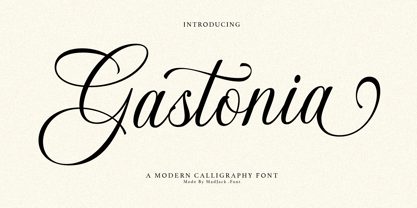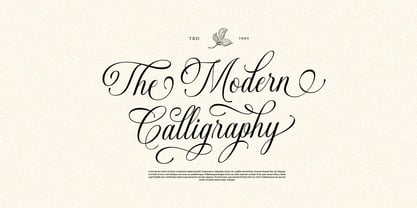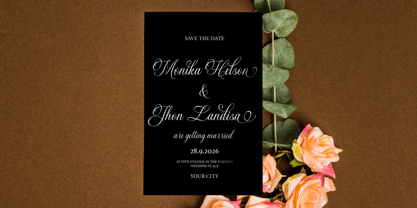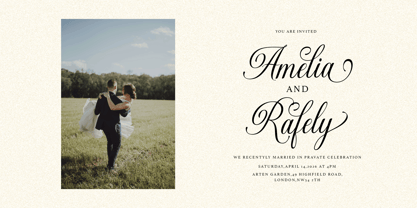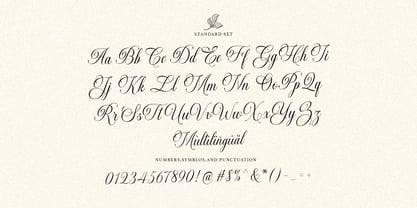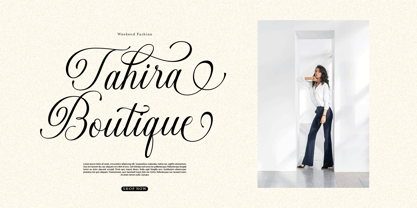
Gastonia Script
by madjack.font
The Gastonia Script Font Family was designed by Zaki Muhammad and published by madjack.font. Gastonia Script contains 1 styles. More about this family
Gastonia Script is a modern script font with a classic and elegant touch. Gastonia Script is appealing because it's sleek, clean, feminine, sensual, glamorous, simple, and highly legible, thanks to its many luxurious letter connections. I also offer a number of stylish alternatives for some of the letters. Its classic style is perfect for various formal applications such as invitations, labels, restaurant menus, logos, fashion, makeup, stationery, novels, magazines, books, greeting/wedding cards, packaging, labels, or any kind of advertising needs. Need help or have questions, let me know. I'm happy to help. Thank you.
Designers: Zaki Muhammad
Foundry: madjack.font